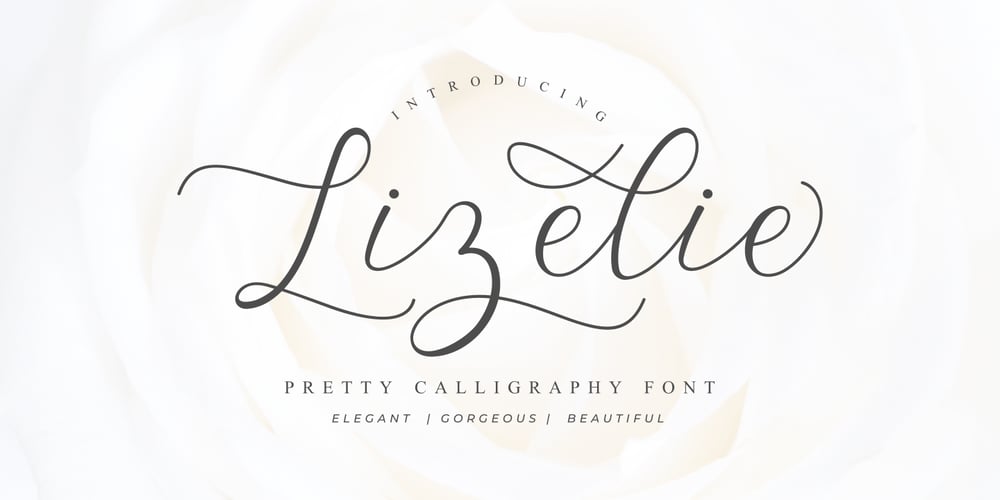
Lizelie Font Family was designed by Java Pep and published by Java Pep. Lizelie contains 1 styles and family package options. Lizelie is an elegant and beautiful calligraphy font that was built with OpenType features like alternates, ligatures, and terminal forms. Use Lizelie for your project to make your design look elegant, gorgeous, and beautiful. Lizelie has multi-lingual support for 17 languages and is PUA encoded. If you have any questions or need technical support, don’t hesitate to drop a message or contact me at java.indonesian@yahoo.com.